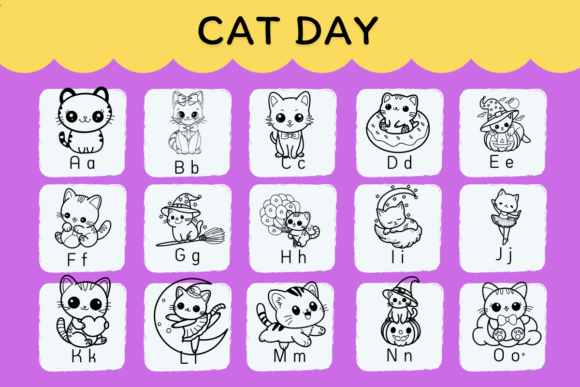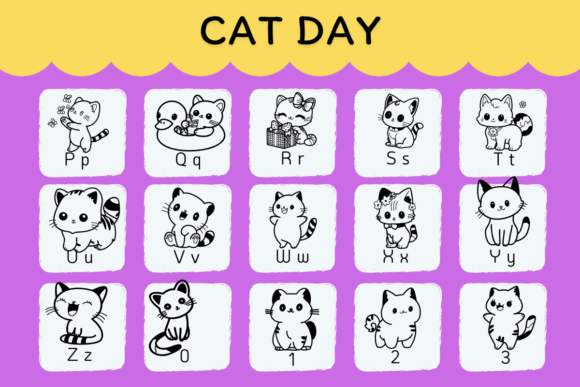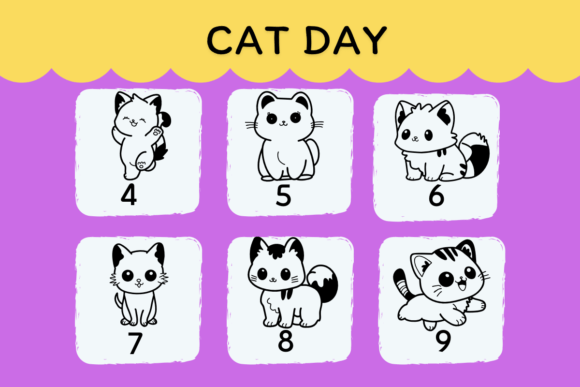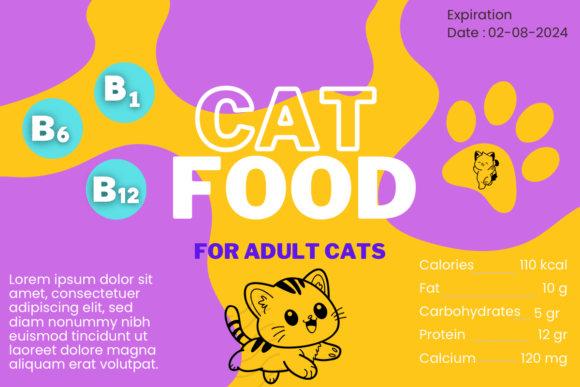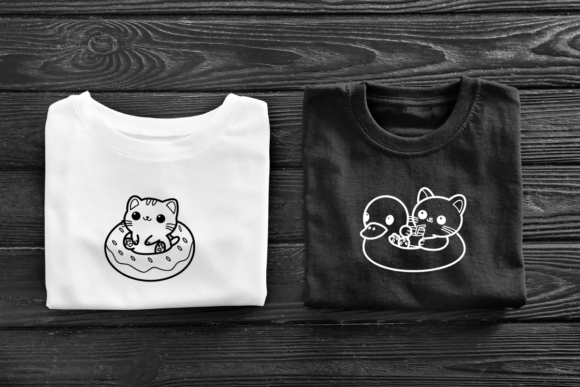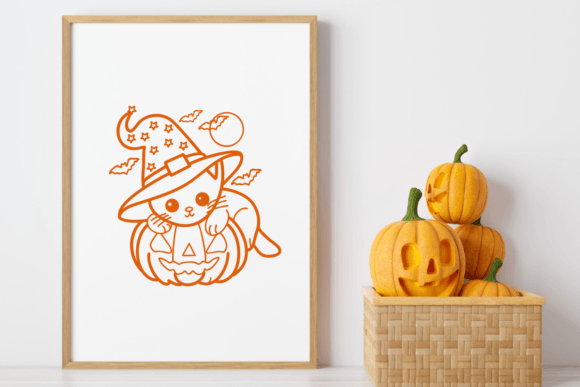
Cat’s Out of the Bag: Unleashing Creativity with Cat Day Font
Remember that moment when you were brainstorming ideas for a special project, and suddenly, a quirky illustration popped into your mind, bringing the whole concept to life? For designers and crafty individuals, those ‘aha’ moments are what drive creativity and make projects truly unforgettable. And for cat lovers, what better way to express their affection than with a feline-themed font?
Introducing Cat Day Font, a delightful dingbats font that captures the whimsical essence of our feline friends. This charming font is designed to elevate your creative projects, from wedding invitations and DIY crafts to decorations, logos, and more. Whether you’re a seasoned designer or a crafty enthusiast, Cat Day Font is the perfect tool to add a playful touch to your work.
What sets Cat Day Font apart is its versatility and value to designers. With its unique feline style, this font is sure to bring a smile to your clients’ faces and make your projects stand out from the crowd. So, get ready to unleash your creativity and let the Cat Day Font be your purr-fect companion in the world of design.
Cat Day Font Key Features
- Font Family: Cat Day Font is a unique, hand-drawn font designed to resemble a cat’s playful and curious nature.
- Unique Characteristics: Features a distinctive, whimsical design with playful cat-inspired elements, including whiskers, paws, and facial expressions.
Designer Review: Cat Day Font
I recently had the chance to work with the Cat Day Font, and I must say it’s a unique and fun addition to any design project. ✨ The font’s quirky and playful nature makes it perfect for branding and marketing materials that want to stand out from the crowd.
- ✨ The font’s eccentricities add a touch of whimsy to any design, making it perfect for cat-themed or children’s products.
- ✨ The bold and vibrant colors make it a great choice for social media and advertising campaigns.
- ✨ The font is highly customizable, making it easy to adjust the color, size, and style to fit your design needs.
- ⚠️ The font may be too playful for formal or professional designs, such as business reports or academic papers.
- ⚠️ The font’s unique design may not be to everyone’s taste, and some users may find it distracting or overwhelming.
Overall, I think the Cat Day Font is a fun and creative addition to any design project. While it may not be suitable for every design task, it’s perfect for projects that need a playful and whimsical touch. With a little creativity and restraint, the Cat Day Font can add a lot of personality and style to your designs.
The Cat Day Font is ideal for cat-themed designs, social media posts, and marketing materials. Use it to create eye-catching headers, titles, and captions that showcase your feline friends.
To get the most out of the Cat Day Font, experiment with different font sizes, colors, and styles to create a unique and visually appealing design. Combine it with other cat-themed elements, such as cat silhouettes or paw prints, to create a cohesive and engaging design.